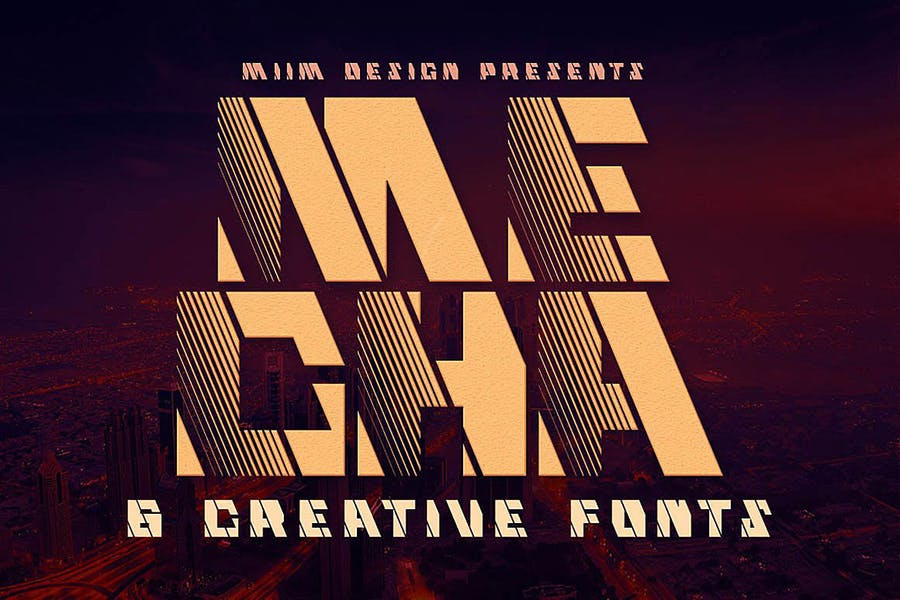
Mecha - Display Font
Mecha - Display Font is perfect for gaming brand identities, sci-fi movie titles, robotics company logos, futuristic tech interfaces, cyberpunk poster designs, mechanical engineering signage, industrial automation materials, advanced technology packaging, esports tournament graphics, and cutting-edge digital displays.
Mecha - Display Font creates excitement because it embodies the power and precision of advanced mechanical engineering with its futuristic letterforms and high-tech character design. The font's angular geometry and technological aesthetic instantly convey innovation and mechanical superiority, making any brand appear cutting-edge and technologically advanced. Its carefully engineered details and robotic precision create an immediate sense of the future that captivates audiences seeking advanced technology, mechanical excellence, and products that celebrate the incredible potential of human engineering and technological innovation.
The Mecha - Display Font family includes multiple weights and styles: Regular, Bold, Black, Ultra Black, Light, Medium, Italic, Condensed, Extended, and Cyber versions. Each variant maintains the font's signature mechanical character while offering different levels of technological intensity and futuristic styling suitable for various tech and engineering applications.